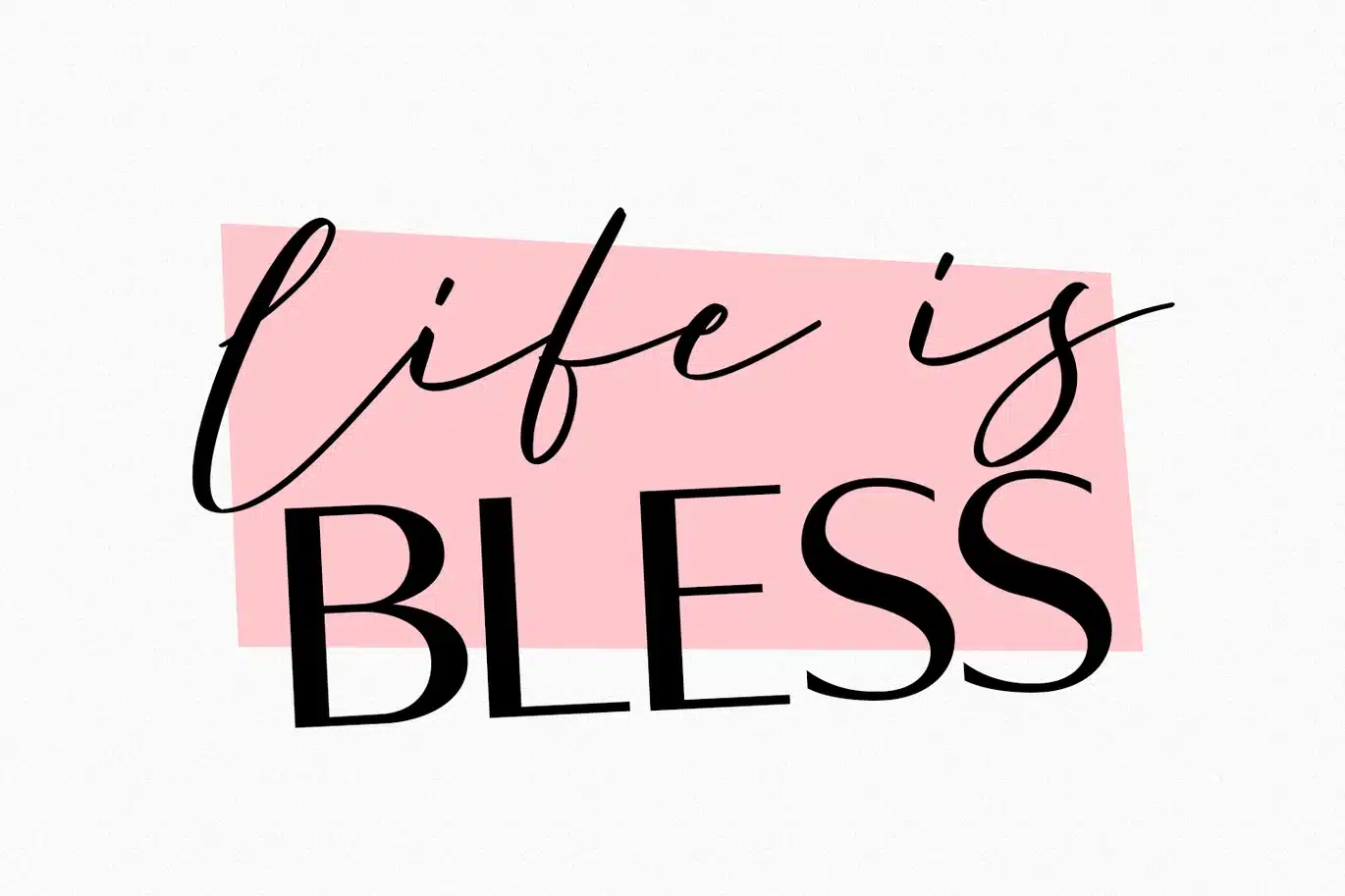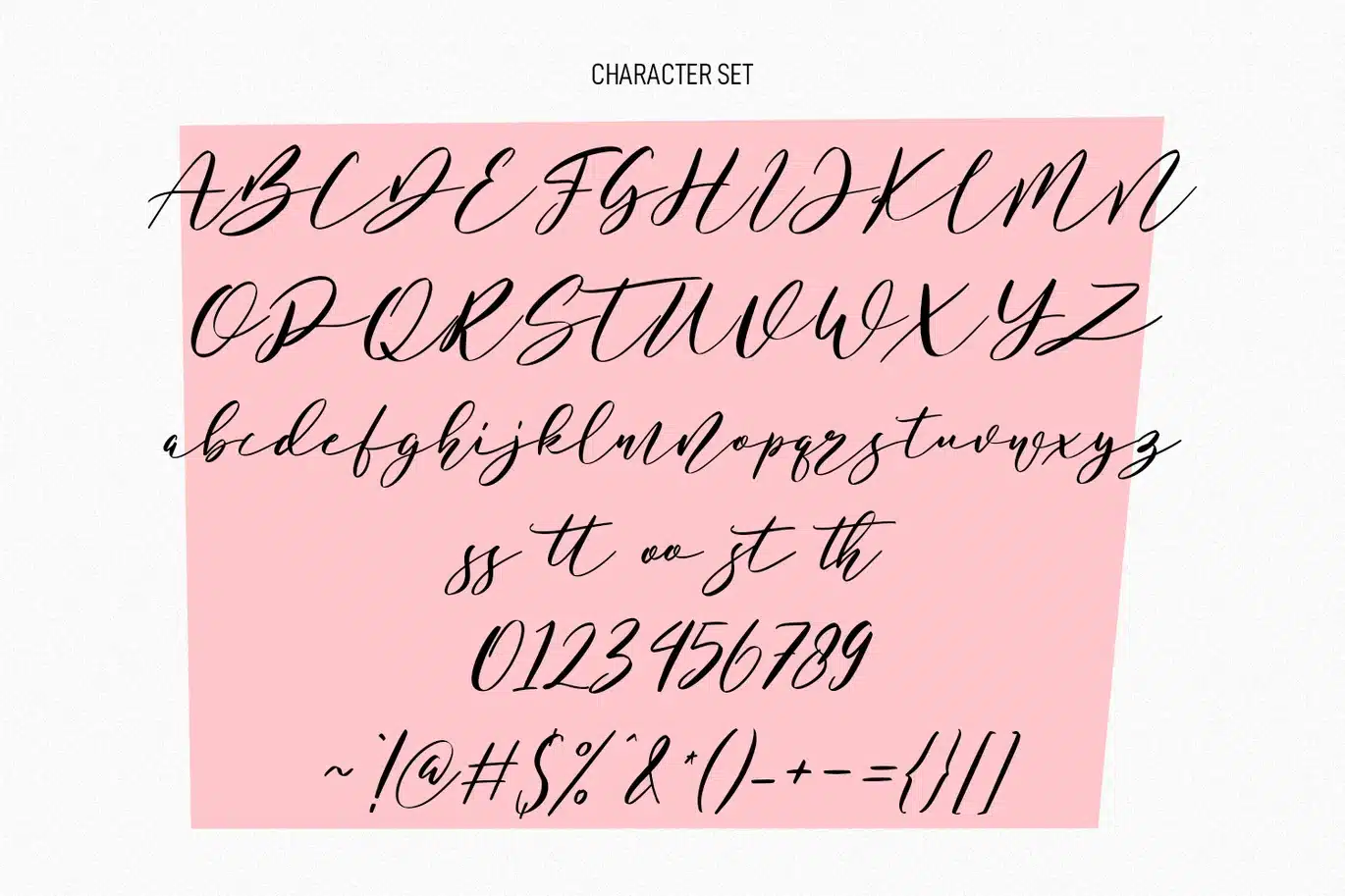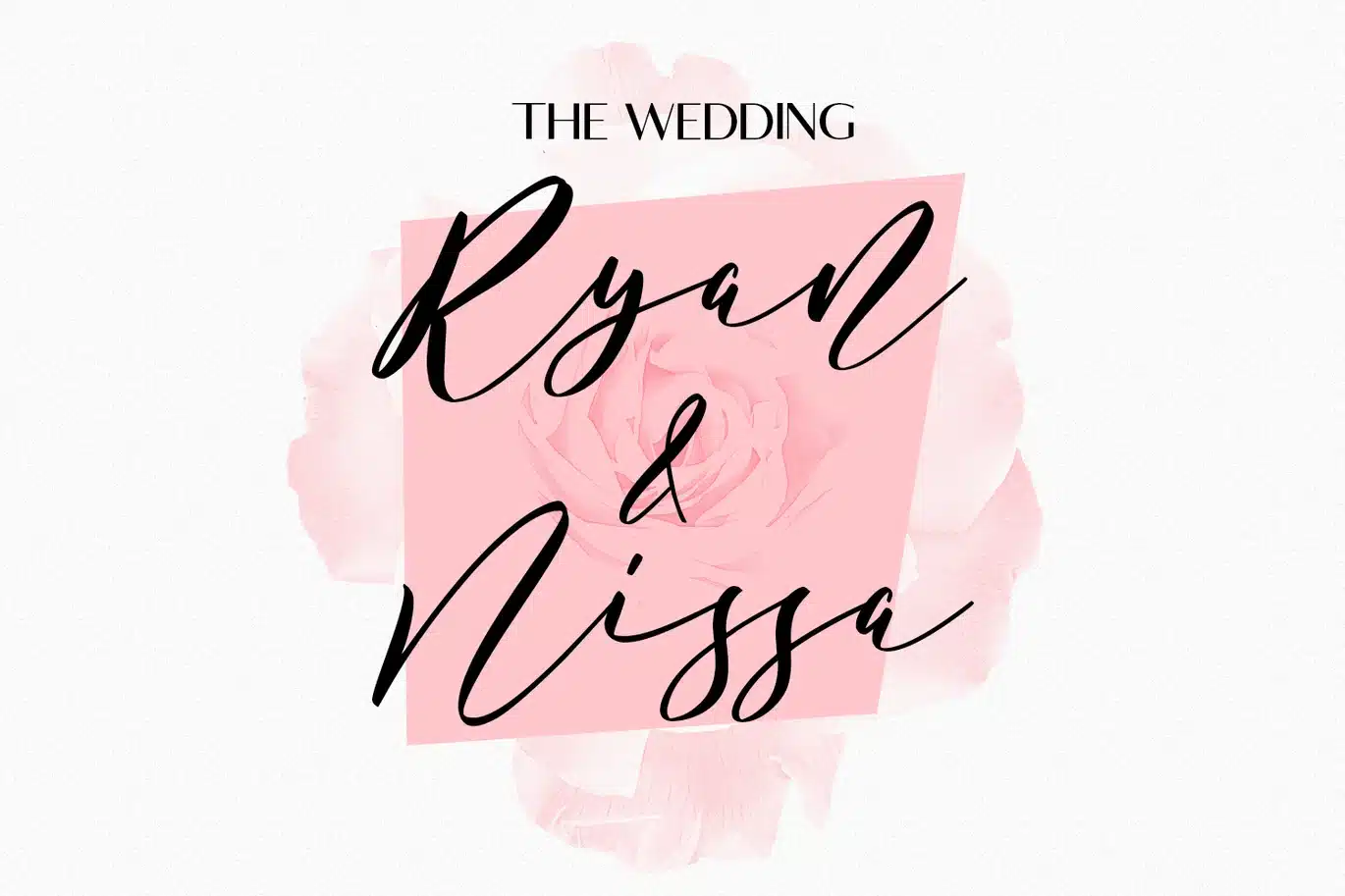
Dominique Aretta Fancy Signature Script Font Duo
Dominique Aretta is a fancy modern script font pair with contrast sans serif. With high contrast script stroke, fun character with a bit of ligatures. To give you an extra creative work. Dominique Aretta support multilingual more than 100+ language. This font is good for logo design, Social media, Movie Titles, Books Titles, a short text even a long text letter and good for your secondary text font with sans or serif. Make a stunning work with Dominique Aretta.